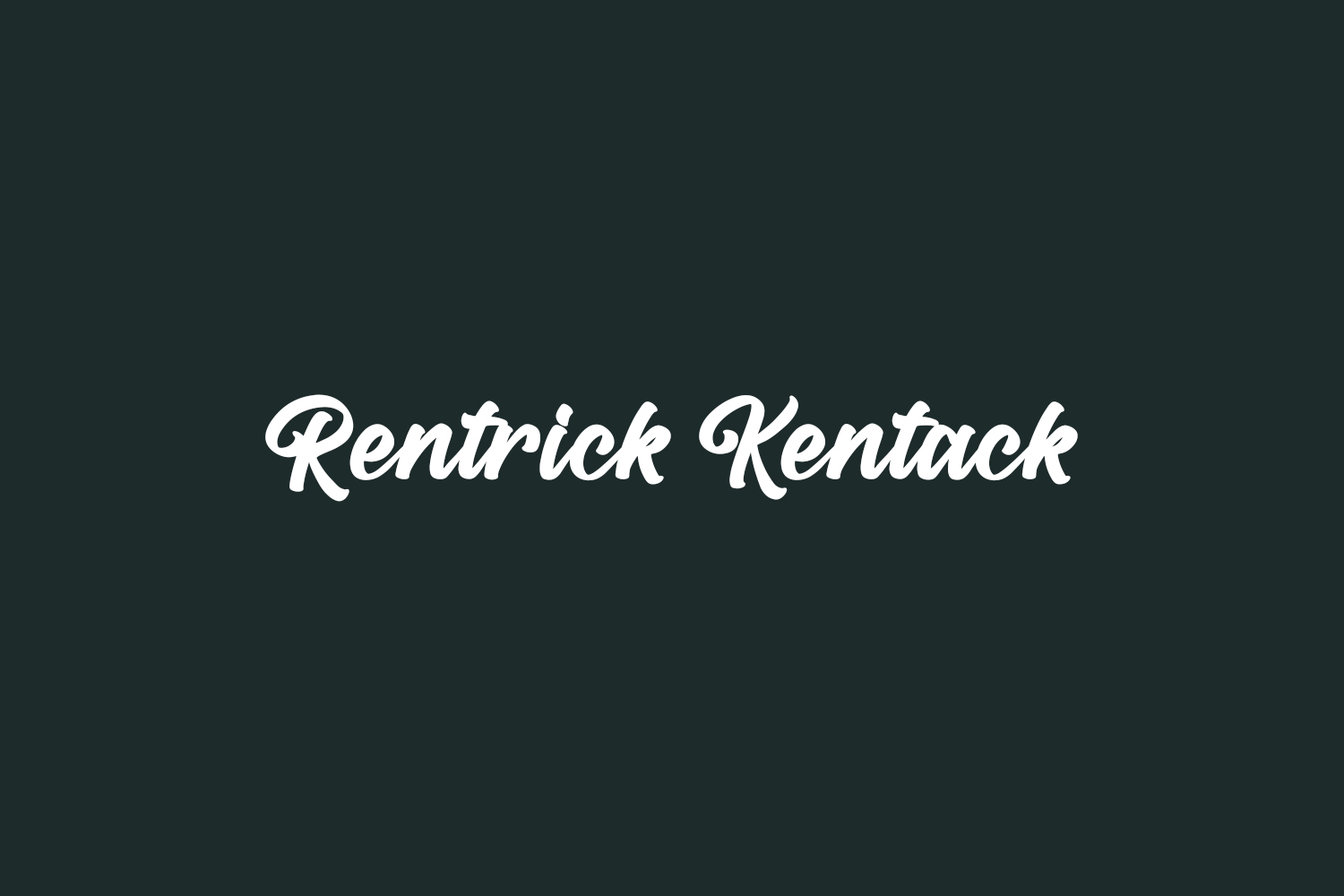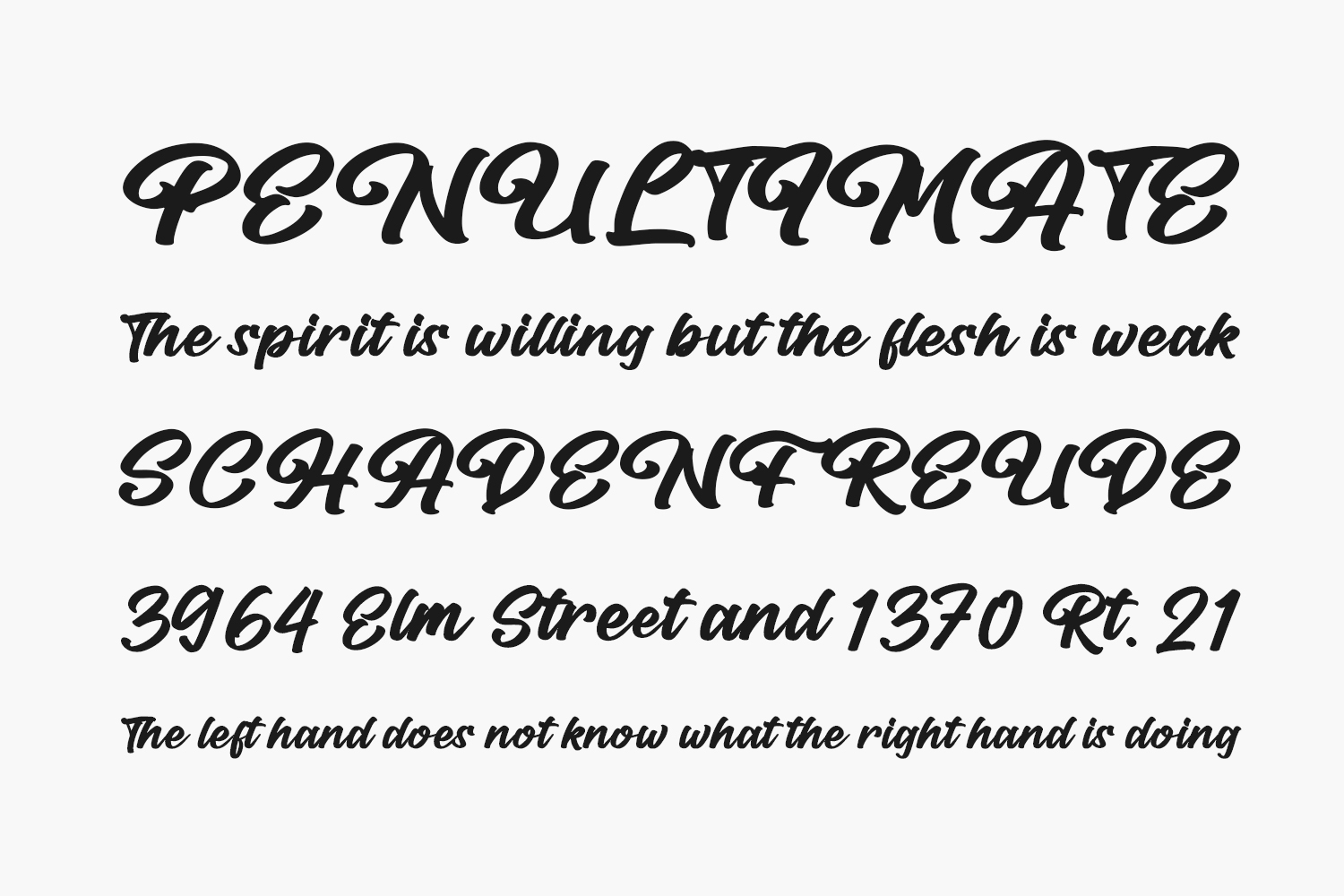
Rentrick Kentack Free Font Family is a unique and elegant handwritten font. It looks beautiful on a variety of designs requiring a personalized style, such as wedding invitations, thank you cards, weddings, greeting cards, logos, and so on. Rentrick Kentack Free Font Family was designed by Perspectype Studio and is free for personal use only. Please purchase the full version for commercial use.